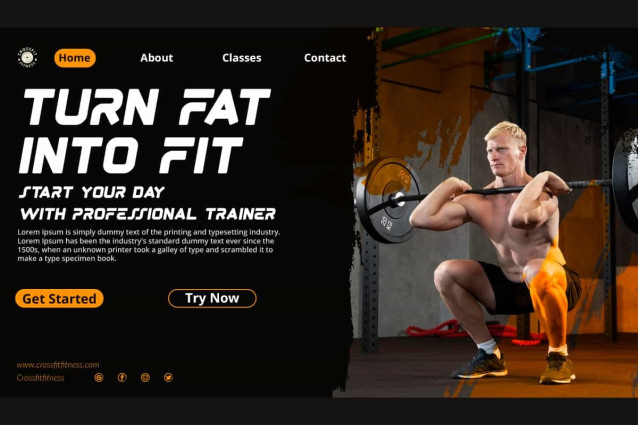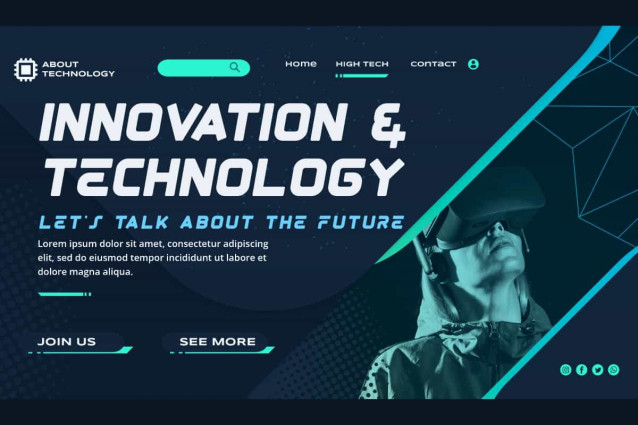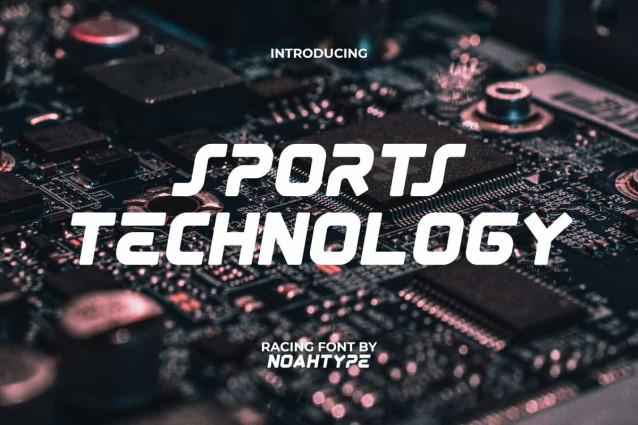
Sports Technology Font
Sports Technology Font is a modern font with a futuristic touch for a racing theme by NoahType. This font has a casual and unique style so it is suitable for any type of concept. It will be perfect for any projects, such as stationery, custom design, signage, invitation, label, brand image, cover, menu, poster, printing, product packaging, quotes, website, and many more!
Sports Technology Font includes full set of ALL CAPS for Uppercase and Lowercase Basic Characters, Numerals, Punctuation, and Symbol. This modern font will make your design awesome and also a perfect choice for many industries, such as fashion, automotive, sports, game, racing, movie, accessories, advertising, art, café, event or festival, printing, publishing, etc.